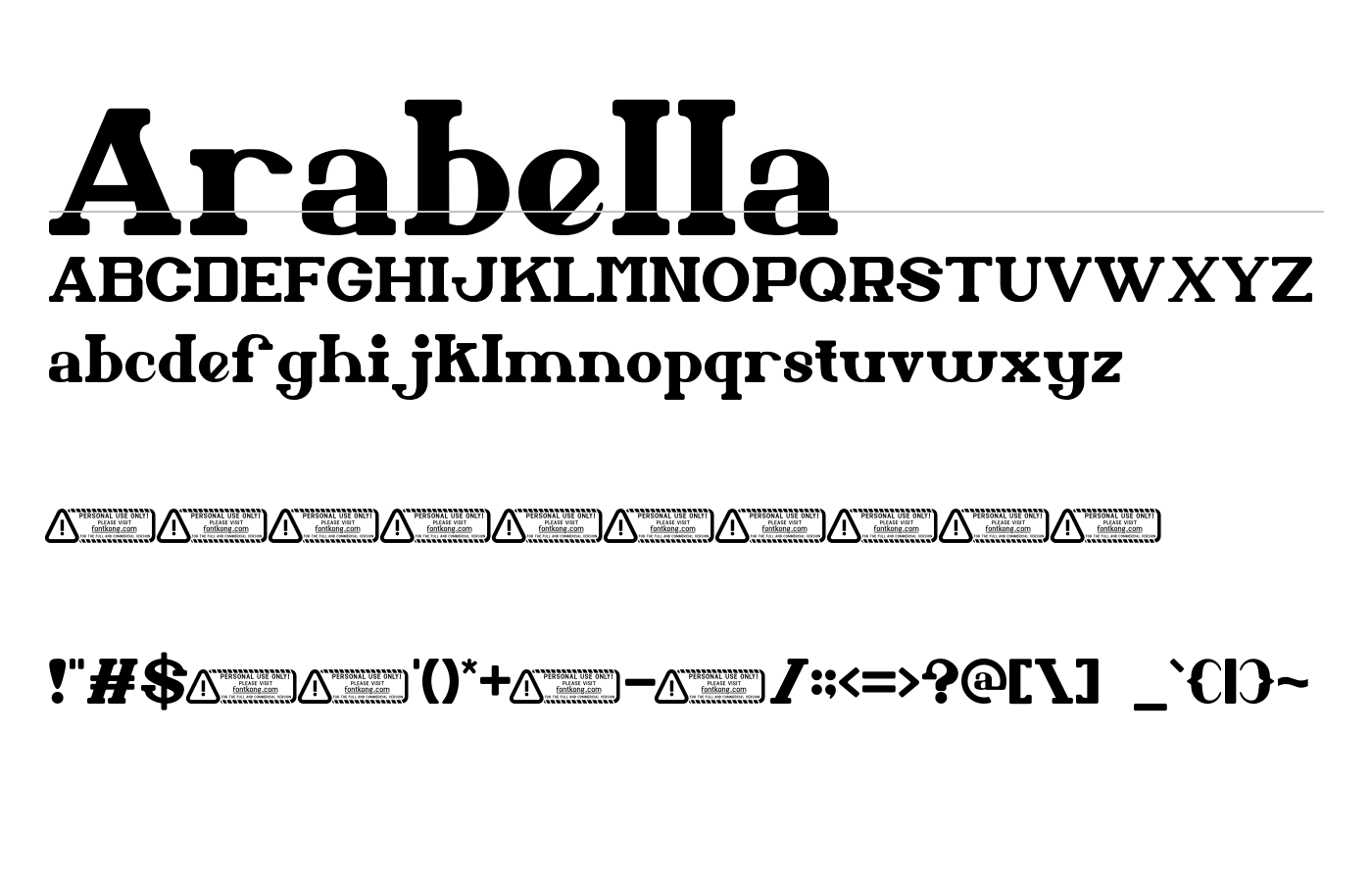
Arabella is a bold slab serif font characterized by its strong, blocky serifs and a sturdy, slightly condensed structure that gives a confident and classic feel. The font features medium contrast strokes with distinctive double-story ‘a’ and ‘g’ forms, contributing to its vintage charm and readability, making it ideal for headlines and branding that seek to communicate tradition and reliability with a touch of personality. Its solid, well-balanced letterforms work well in print and digital designs where impact and clarity are essential.
Arabella Font
About Arabella Font